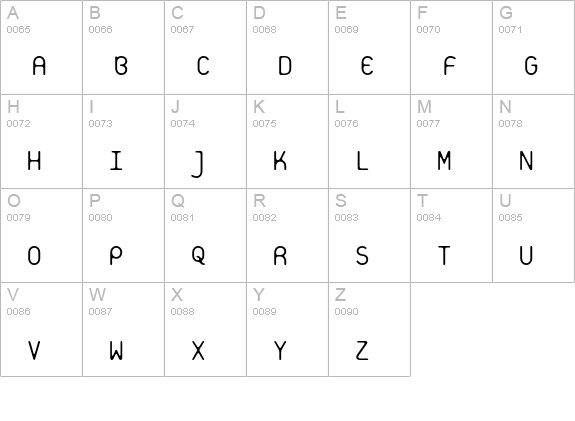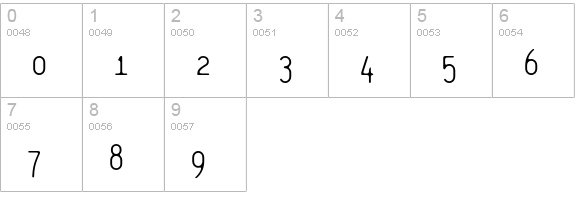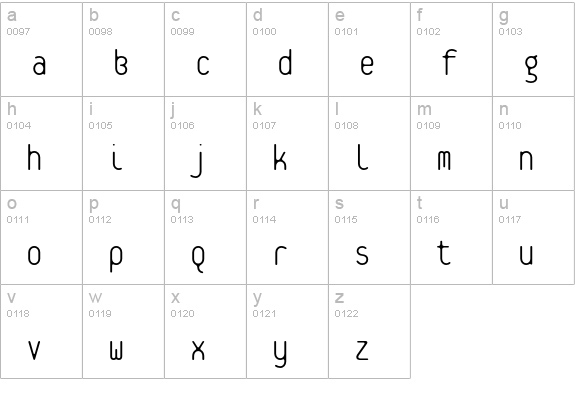
PlateletThin Font Details
PlateletThin font is a sleek and elegant typeface that exudes sophistication and modernity. Its thin and delicate strokes give it a minimalistic and refined appearance, making it perfect for projects that require a touch of grace and elegance. The clean lines and subtle curves of PlateletThin font create a sense of airiness and sophistication, making it ideal for branding, editorial design, and other creative projects. Best of all, PlateletThin font is completely free to download at FontsMarket.com. Whether you're a professional designer looking for a versatile typeface for your next project or a hobbyist seeking a stylish font for personal use, PlateletThin font is the perfect choice. Its timeless and versatile design ensures that it will stand the test of time and remain a staple in your font library for years to come. Download PlateletThin font today and elevate your designs with its effortless beauty and charm.